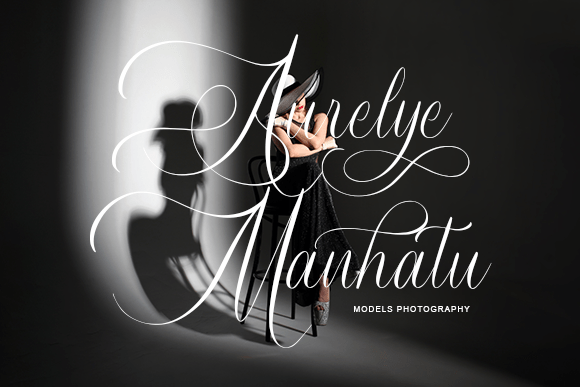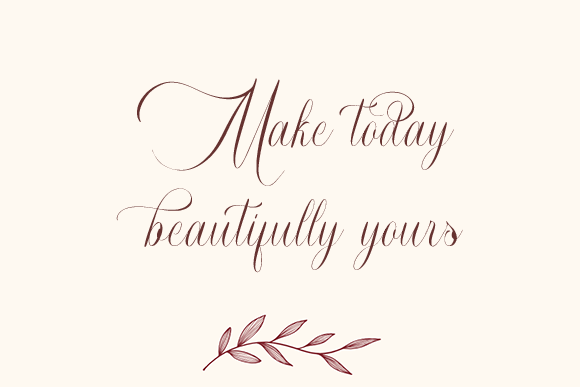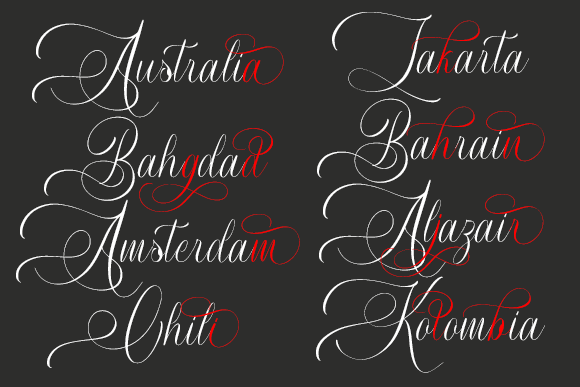
Introduction to Monila Font
As a designer, there’s nothing quite like the thrill of bringing a creative project to life. You’re brainstorming ideas, sketching out concepts, and searching for the perfect design resources to elevate your vision. And then, it happens – you stumble upon a font that makes your project truly shine. For many designers, that font is Monila Font. With its elegant script style and sophisticated flowing strokes, Monila Font is the perfect choice for high-end designs that demand a touch of luxury and sophistication.
Whether you’re working on a high-profile branding project or simply want to add a touch of elegance to your next design, Monila Font is a valuable resource that’s sure to deliver. Not only is it free to download, but its high-quality design also features a transparent background, making it easy to use in a variety of creative applications. In this article, we’ll explore the features and benefits of Monila Font, and show you why it’s a must-have design resource for any serious designer.
Key Features of Monila Font
- High-quality design resource suitable for creative projects, offering a unique and elegant style.
- Monila Font is a versatile design resource that can be used for various creative projects, from branding and marketing materials to editorial and publishing content.
- Its unique characteristics and high-quality design make it an excellent addition to any designer’s toolkit or design resource library.
Honest Review: Monila Font
I recently stumbled upon the Monila Font and I must say it’s been a great addition to my design resource collection. The free download was a welcome surprise, and I was excited to dive in and see what it had to offer.
- High-quality design: The Monila Font has a unique and modern look that adds a touch of elegance to any creative project.
- Wide character set: The font includes a wide range of characters, making it suitable for various languages and design applications.
While the Monila Font is a great addition to any design resource collection, there are a few limitations to consider:
- No bold or italic variations: The font is available in regular weight only, which may limit its use in certain design applications.
- No support for certain languages: The font’s character set is limited to a few languages, which may make it less suitable for global design projects.
Overall, I’m impressed with the Monila Font and would recommend it to designers looking for a high-quality, modern font for their creative projects. While it may have some limitations, its unique design and transparent background make it a valuable addition to any design resource collection.
Designing with Monila Font
Monila Font is suitable for a variety of creative projects, including logos, business cards, brochures, and social media graphics. Its high-quality design and transparent background make it easy to use in a range of design contexts.
Getting the Most Out of Monila Font
To get the most out of Monila Font, experiment with different font sizes, colors, and styles. You can also combine Monila Font with other design elements, such as images and graphics, to create a unique look.